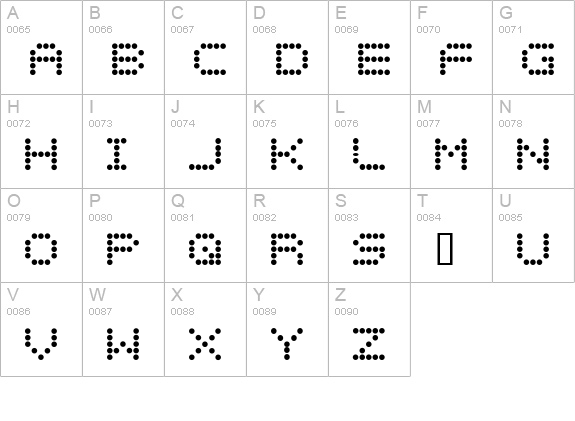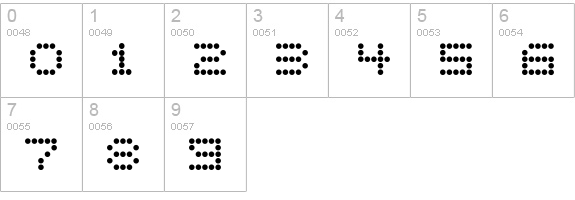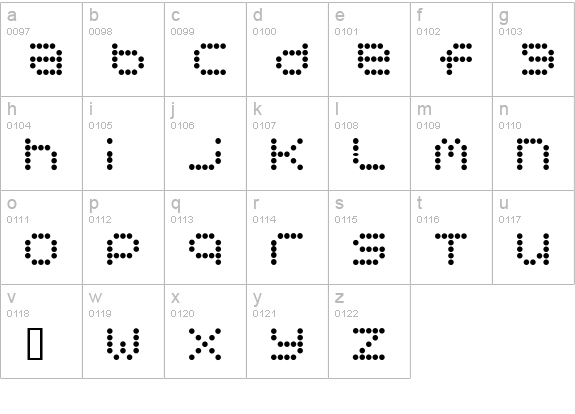
circle 30 Font Details
Introducing Circle 30 Font, a sleek and modern typeface that exudes elegance and sophistication. With its smooth curves and perfect circular shapes, this font is perfect for a wide range of design projects. Whether you're creating a logo, poster, or website, Circle 30 Font will elevate your designs to the next level. What sets Circle 30 Font apart is its versatility and readability. It is legible at any size, making it ideal for both large headlines and small body text. The clean lines and balanced spacing ensure that your message will always be clear and engaging. And the best part? Circle 30 Font is completely free to download at FontsMarket.com. That's right, you can access this high-quality font at no cost, making it a valuable addition to your design toolkit. Don't miss out on this opportunity to enhance your projects with Circle 30 Font today!